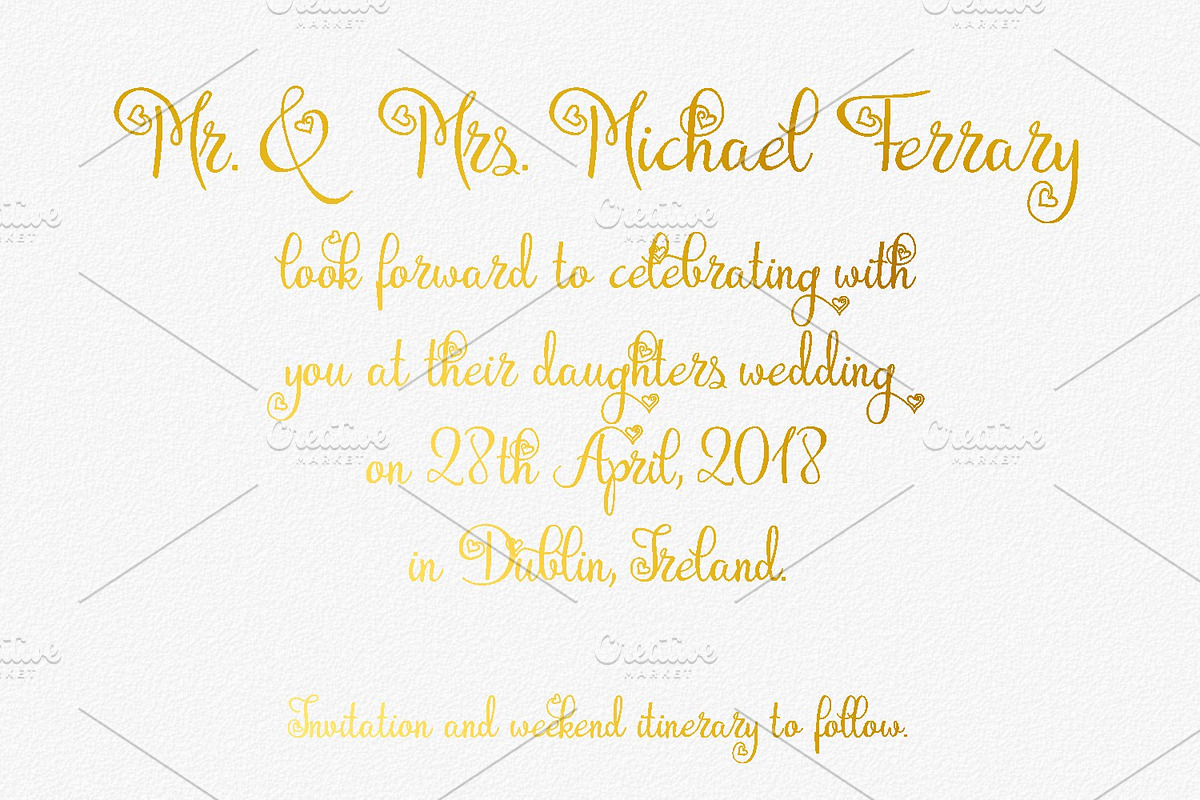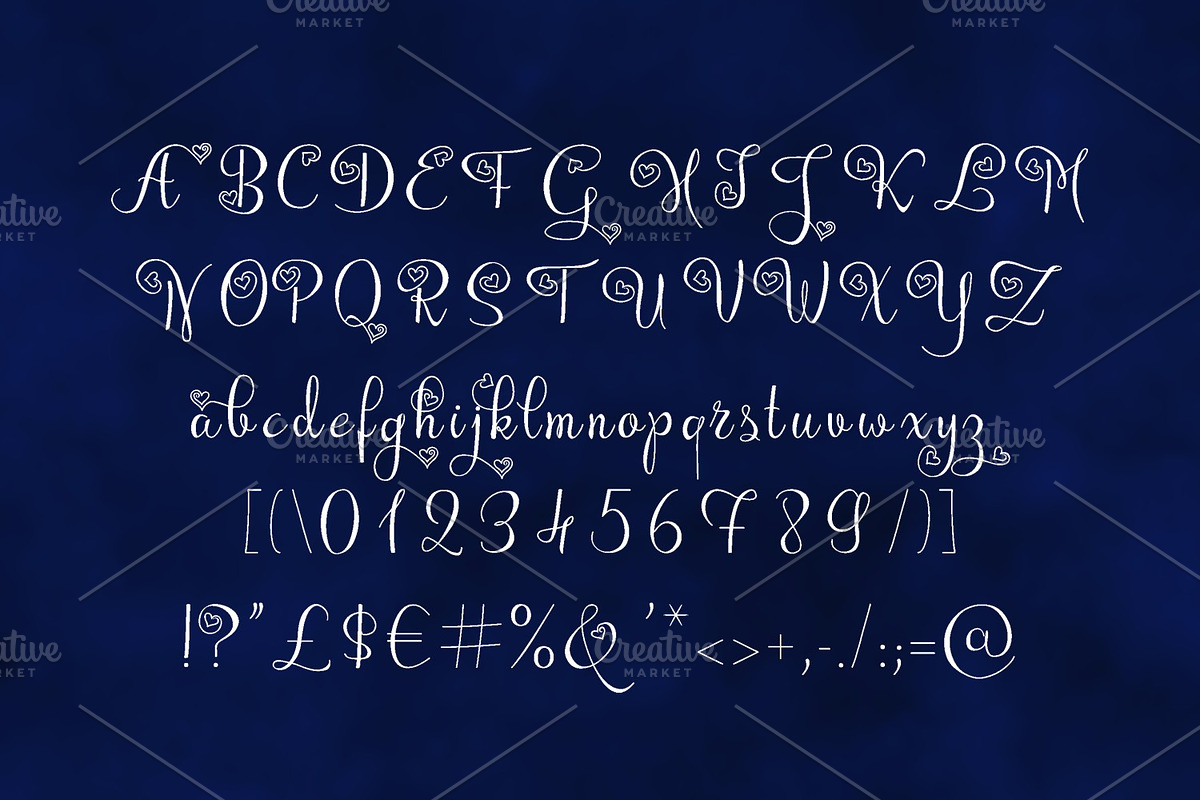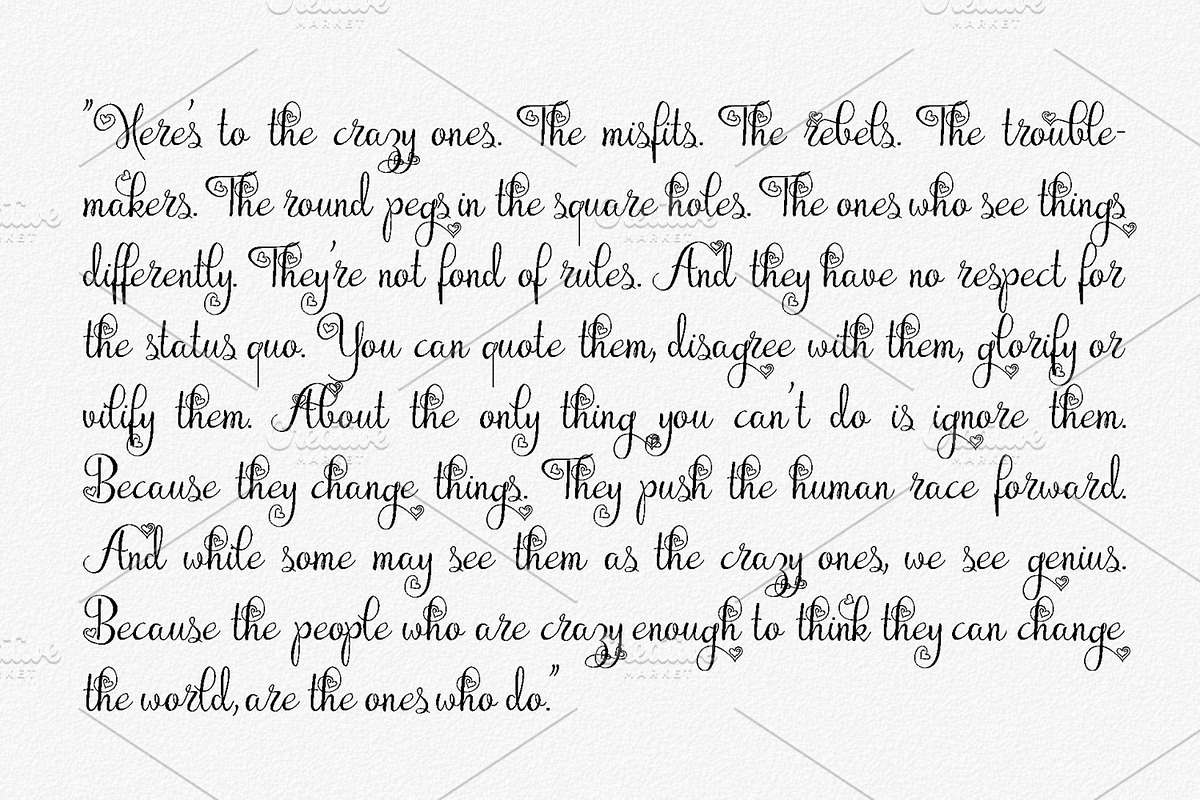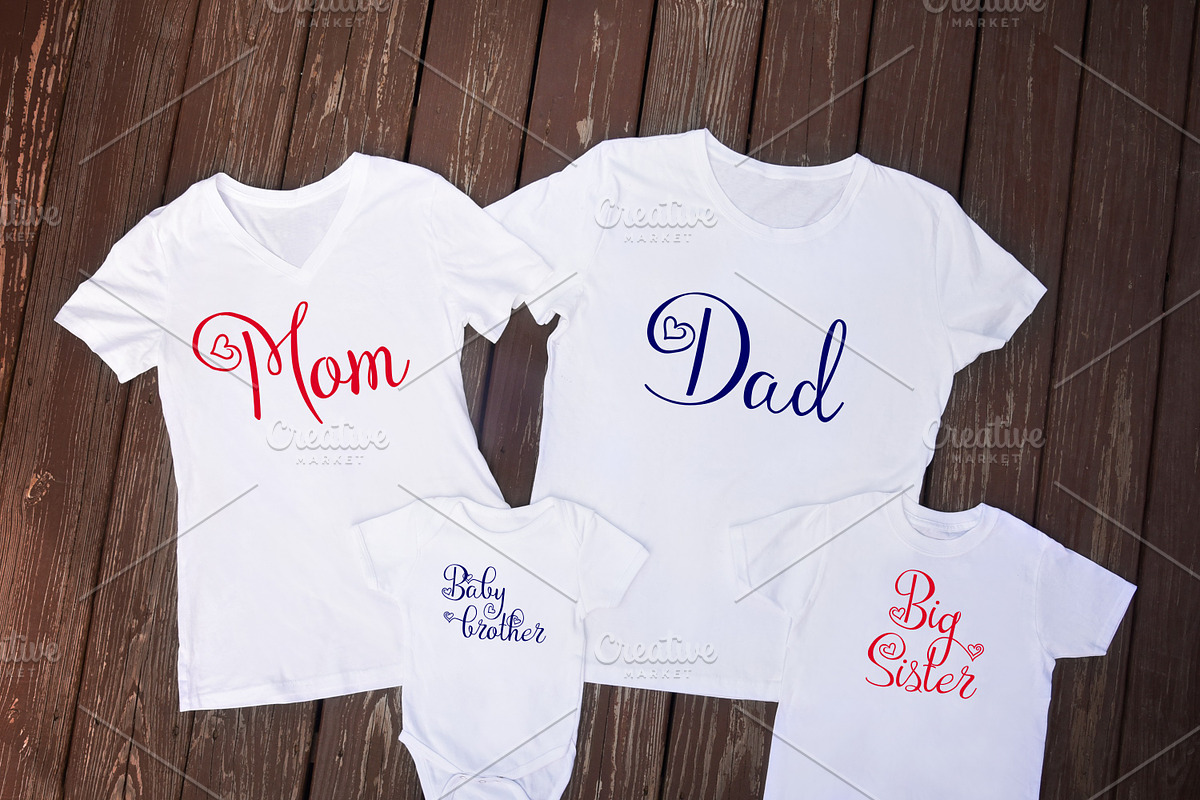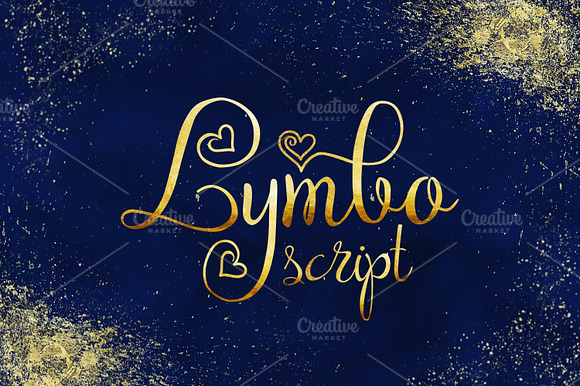
Lymbo
Introducing Lymbo hearts decorated handwritten typeface. Download and use across a huge range of programs such as Adobe programs, Corel programs, Cricut and many others!
Why Lymbo is worth a look
Lymbo by Digital Typeface Studio fits naturally into Branding, posters, packaging, typography.